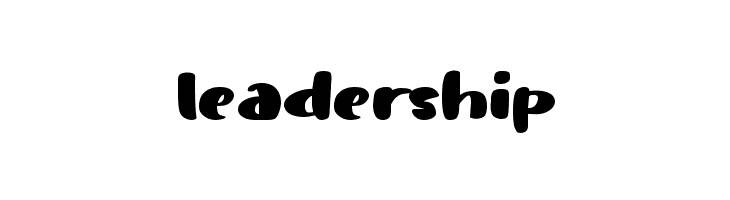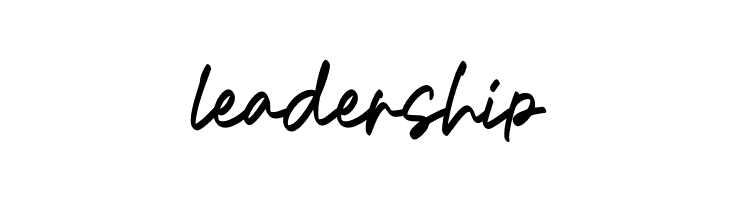
• Aneenditha FREE
Thin, flowing handwritten script with connected letters.
• AneendithaFREE
Thin, cursive script with a handwritten, elegant style.
• Aneetha Demo
An elegant, flowing script font with a whimsical, hand-drawn style.
• Aneethademo Sans
A playful, casual handwritten font with smooth, rounded letterforms.
• ANEHIK-Regular
A bold, dripping font with a horror-themed aesthetic.
• Aneirin
A decorative and ornate font with high contrast and intricate details.
• Aneirin Regular
• AneishaScriptBold
A bold, expressive script font with fluid, connected strokes.
• AneishaScriptBold
A lively and expressive cursive script font with bold, flowing strokes.
• Aneka Satwa
A bold, expressive brush script with a textured, hand-painted style.
• Aneka Satwa
A dynamic, brush-style font with expressive, hand-painted strokes.
• Anekdot
A bold, brush-like font with an expressive and dynamic style.
• Anekdot
A bold, brush-textured font with an energetic and expressive style.
• Aneliya - Personal Use
A playful and elegant script font with flowing, cursive letters.
• Aneliza
A clean, modern sans-serif font with uniform stroke widths and excellent readability.
• Aneliza Bold
A bold, modern sans-serif font with clean lines and balanced proportions.
• Aneliza Bold Italic
A bold and italic font with a modern, dynamic style.
• Aneliza ExtraBold
A bold, modern sans-serif typeface with strong, uniform strokes.
• Aneliza ExtraBold Italic
A bold, italic font with a modern and dynamic style.
• Aneliza ExtraLight
A clean, minimalist extra-light font with consistent stroke width and modern appeal.
• Aneliza ExtraLight Italic
A sleek, extra-light italic font with a modern and elegant style.